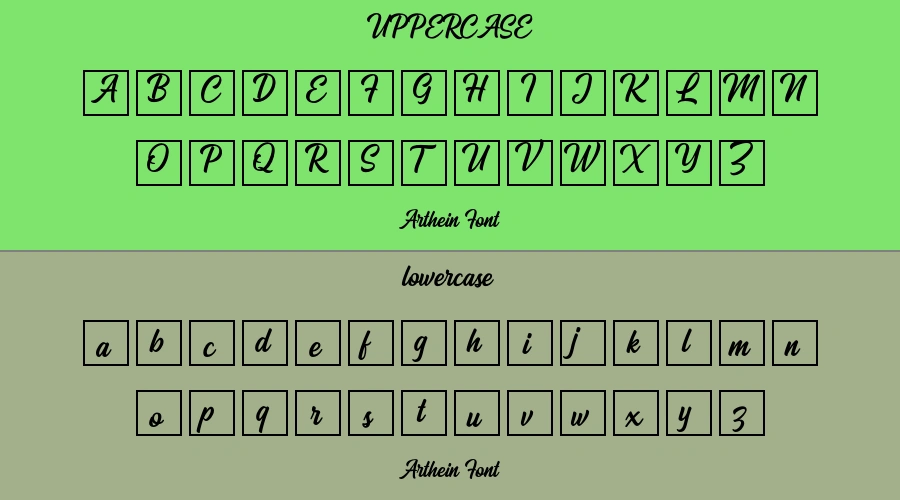
About Arthein Font
Arthein Font represents a sophisticated approach to type design, balancing hand-drawn quality with versatility. Perfect for brand guidelines, this font family showcases impressive consistency and aesthetic refinement throughout its character set. Designers appreciate its versatility and reliability.
Designers will appreciate nuanced touches including balanced proportions and careful spacing, adding sophistication to any project. These features become apparent in warning labels, where footnote clarity matters most. The careful treatment of stroke contrast and cultural relevance ensures optimal performance.
Arthein Font |